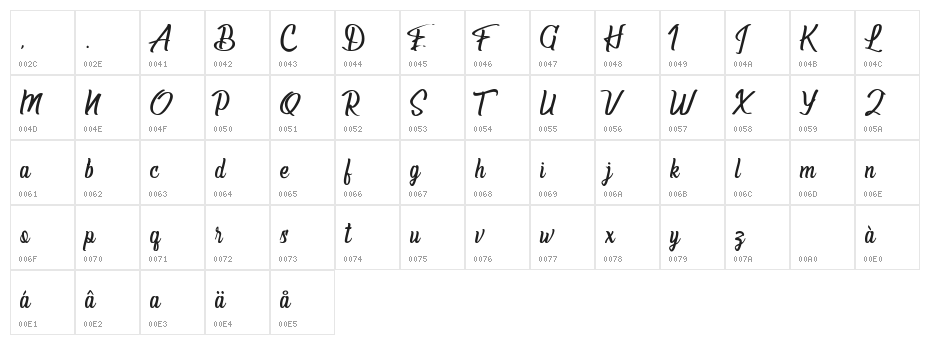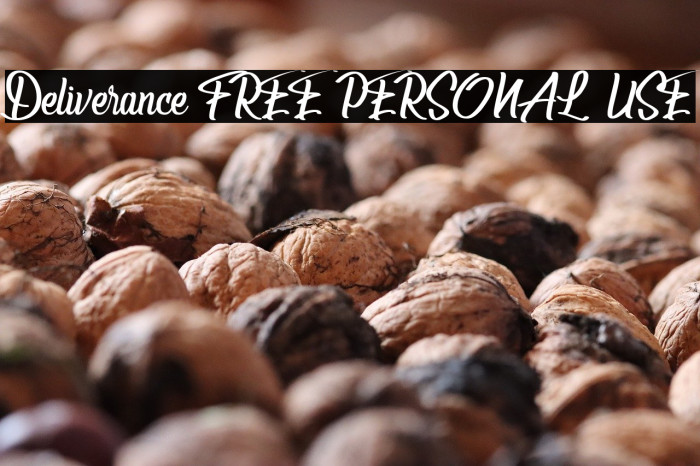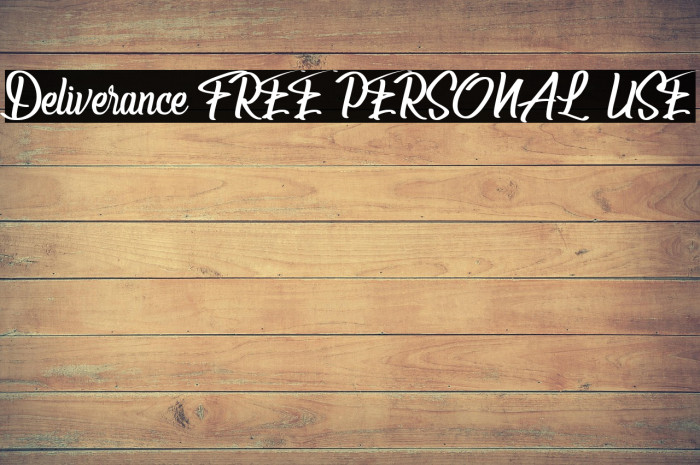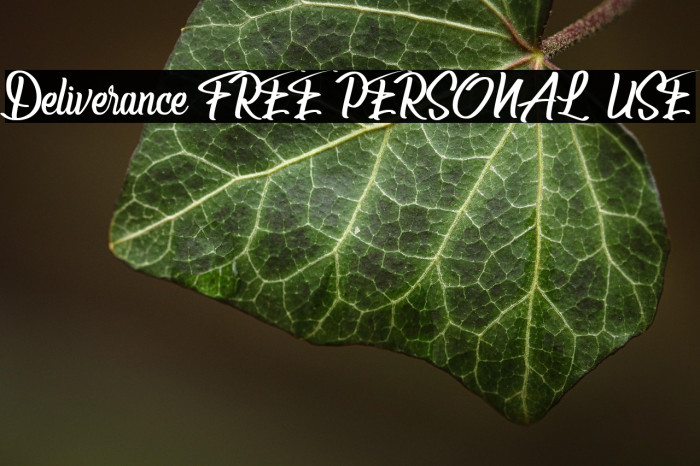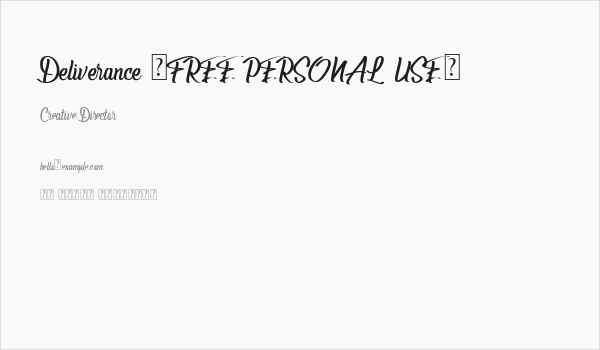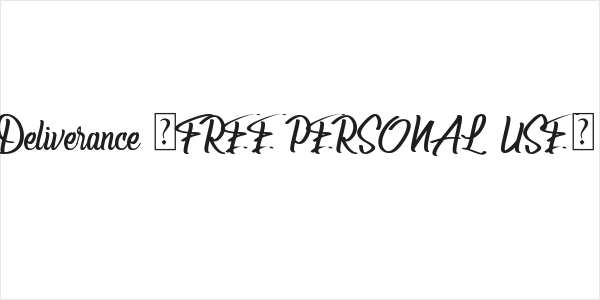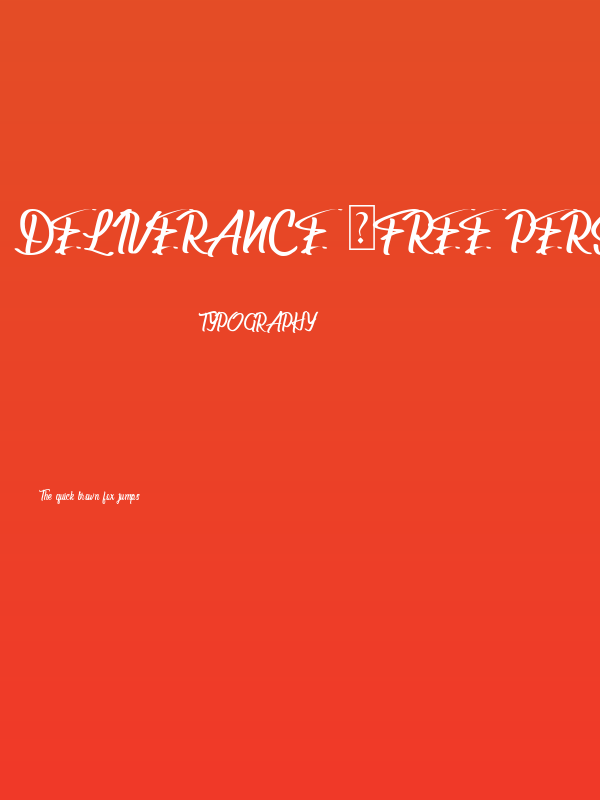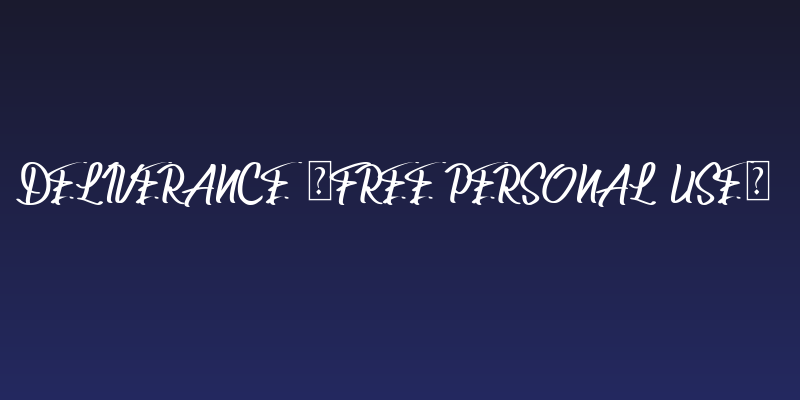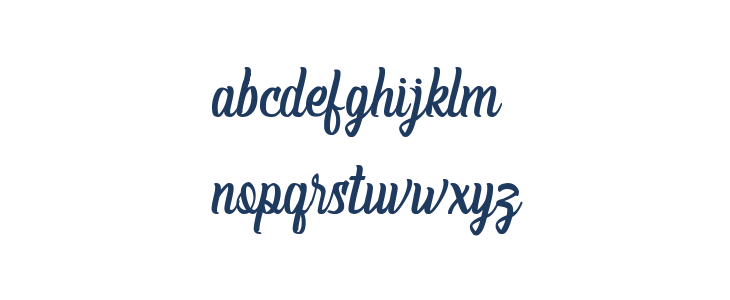
Deliverance [FREE PERSONAL USE] Font
Deliverance [FREE PERSONAL USE] Description
This font features a dynamic and flowing script style, characterized by its elegant and cursive letterforms. The uppercase letters exhibit a dramatic flair with sweeping strokes and intricate details, while the lowercase letters maintain a consistent and smooth flow. The font's design is reminiscent of traditional calligraphy, offering a sense of sophistication and artistry. The characters are well-balanced with a slight slant, enhancing the overall fluidity. The font includes a full set of uppercase and lowercase letters, numbers, and a selection of special characters, making it versatile for various design needs.